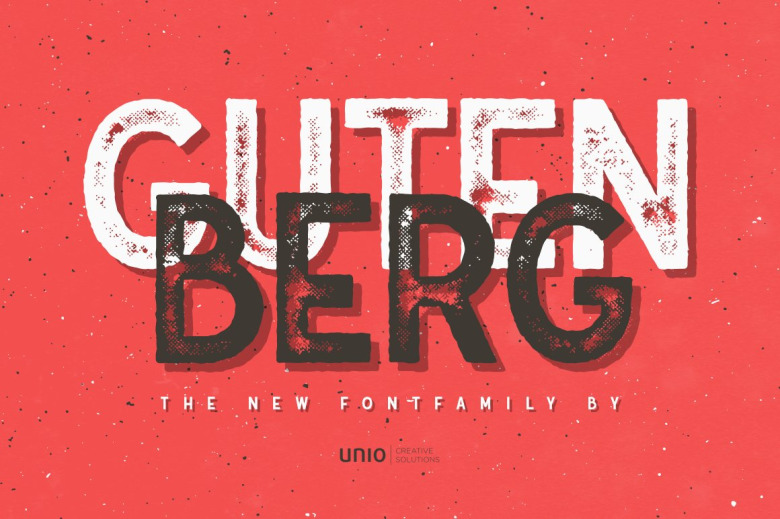
Gutenberg Font Family
Gutenberg Font
Introducing to you the new font family. Gutenberg Font Family is designed by Unio | Creative Solutions. Gutenberg is a sans serif font which presents sketchy edges with irregular scheme imperfections to simulate the transferred ink. This font family includes 296 glyphs and the multi-language support, it also comprises regular rough and regular clean styles with corresponding true italics.